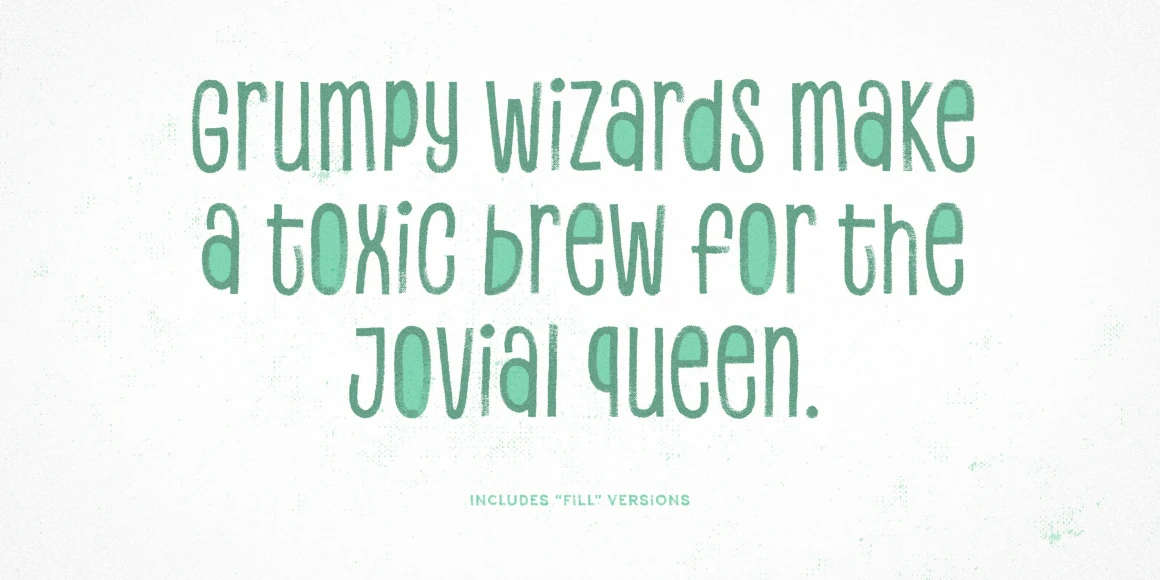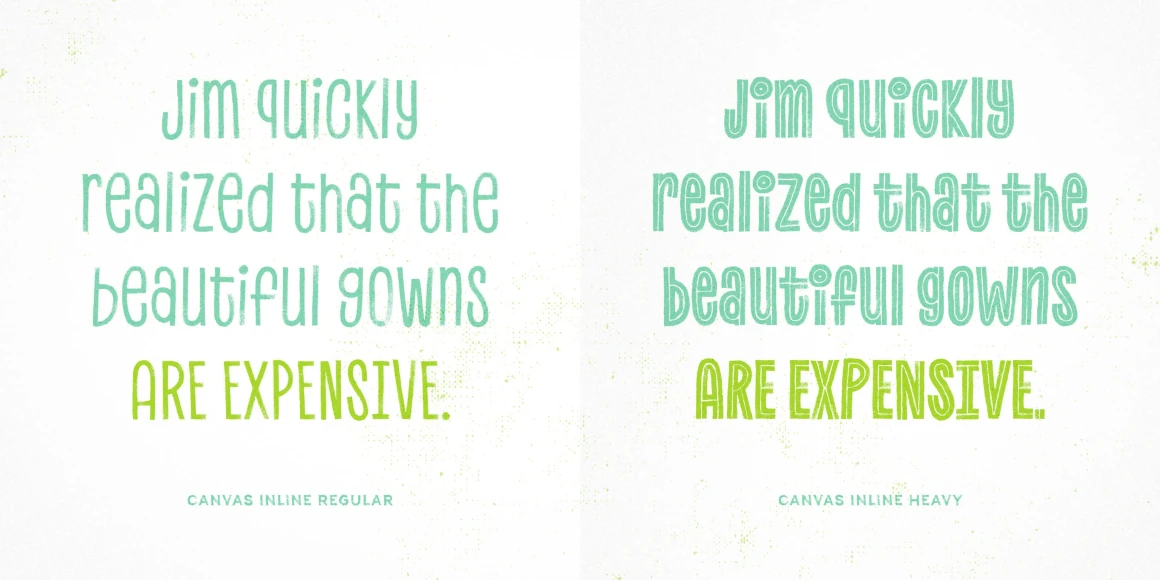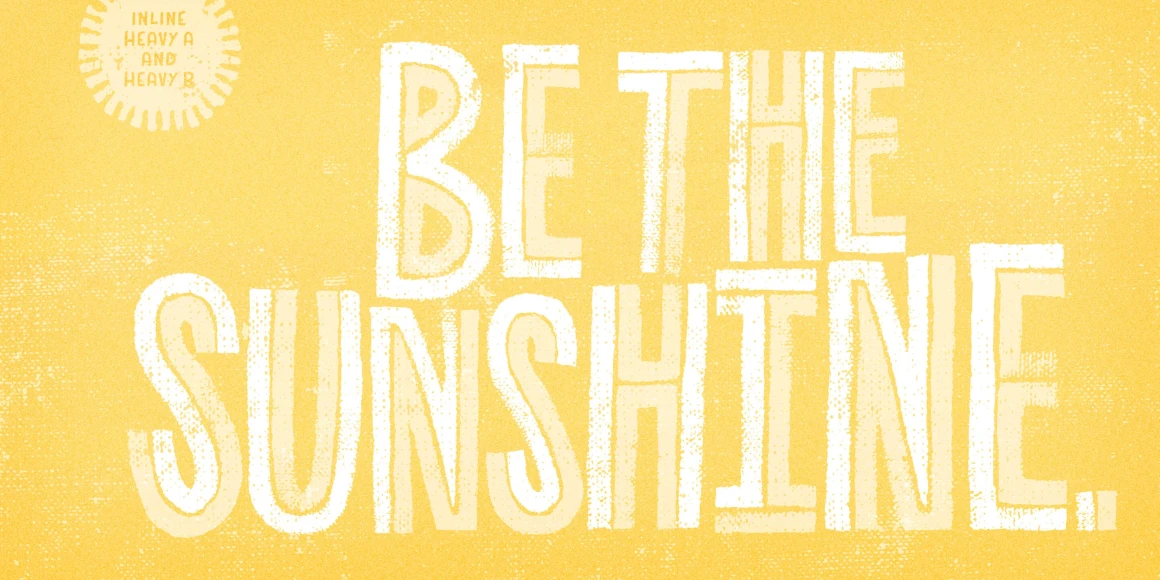
Canvas Inline
Canvas Inline Regular
Canvas Inline Regular Fill
Canvas Inline Heavy
Canvas Inline Heavy Fill
Canvas Inline Heavy A
Canvas Inline Heavy B Fill
Canvas Inline Heavy A Fill
Canvas Inline Heavy B
Canvas Inline is part of the Canvas Acrylic Megafamily. It’s an eccentric hand-painted unicase family with unique layering options. With authentic, hi-res texture it retains its realism even at very large sizes. Canvas Inline has double-letter ligatures that automatically fix adjacent duplicate letters. A bonus set of complimentary vector background textures, shapes and elements is available from the site.